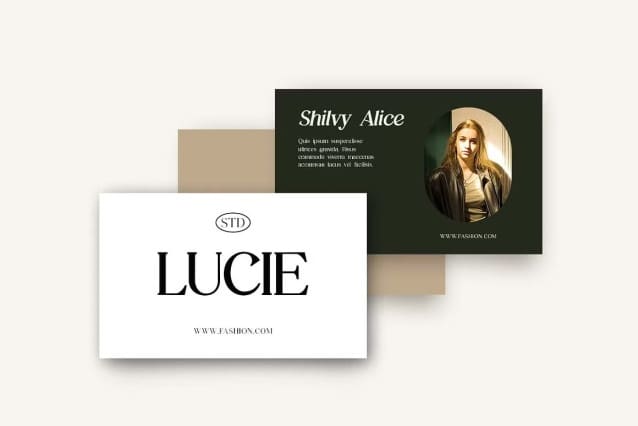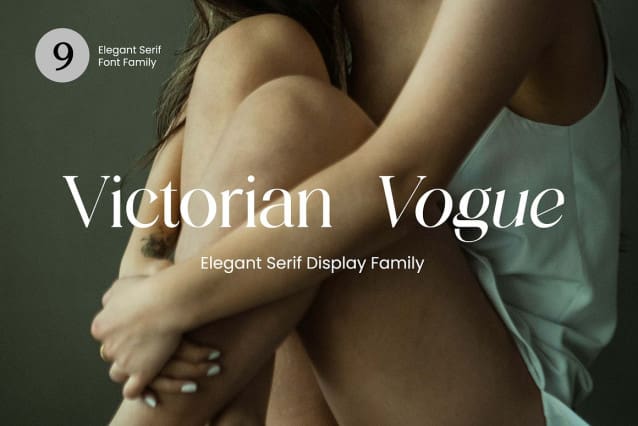
Victorian Vogue Font Family
Victorian Vogue Font Family – Elegant Serif Font . The modern display font feels beautiful classy, elegant, and stylish. This font is ideally suited for a wide variety of projects, such as signature, stationery, logo, wedding, typography quotes, magazine or book covers, website headers, branding, and more. Also, fashion-related branding or editorial design displays both masculine and feminine qualities.